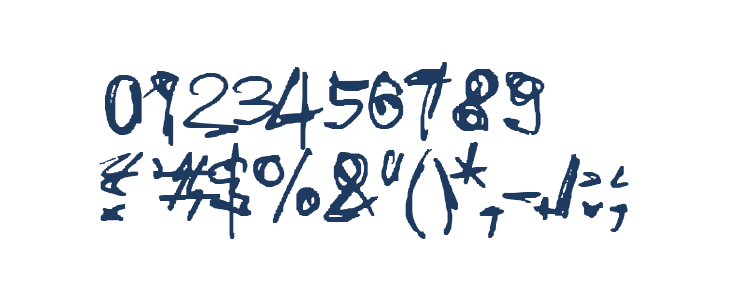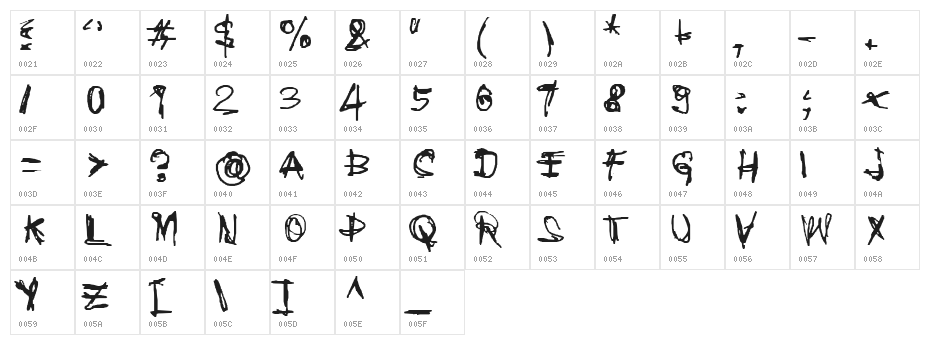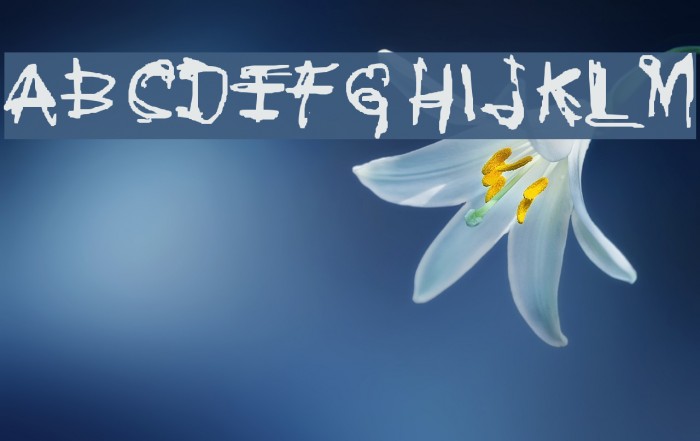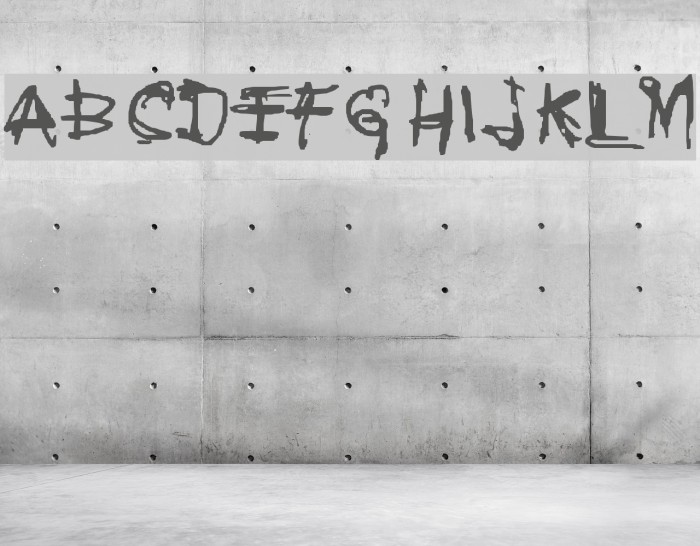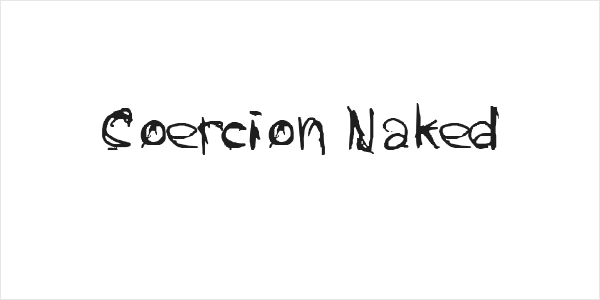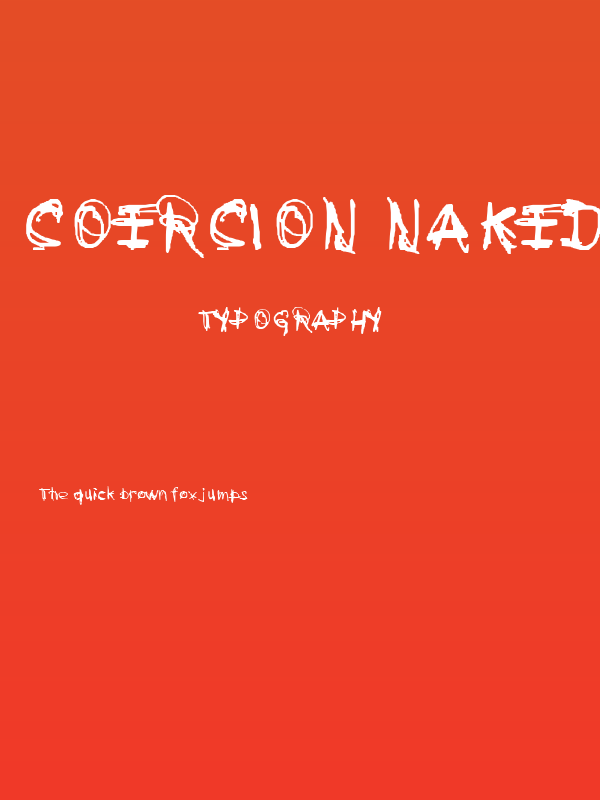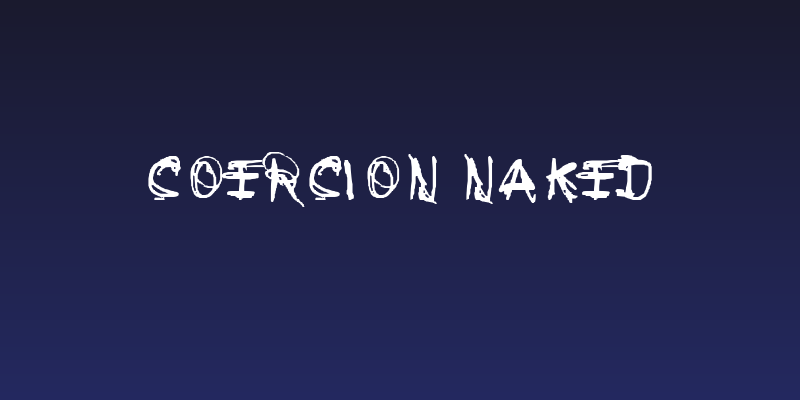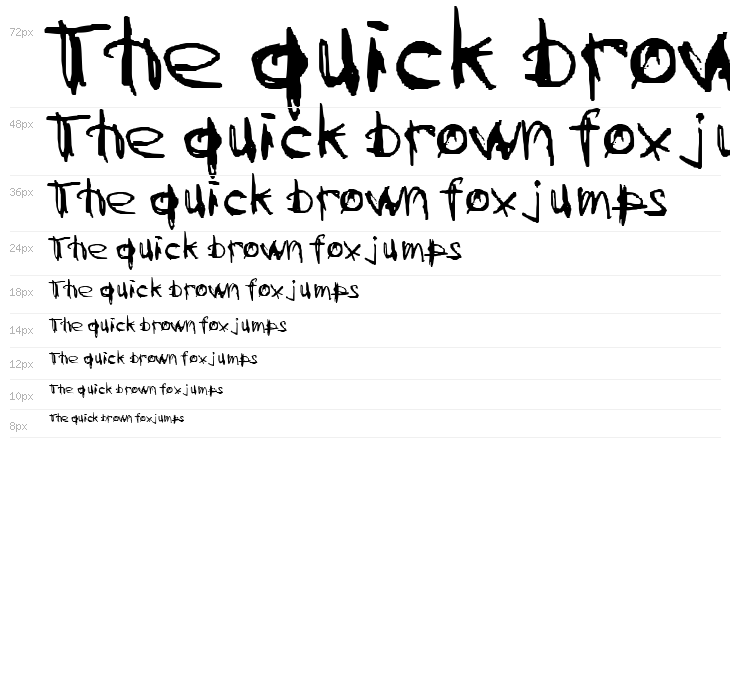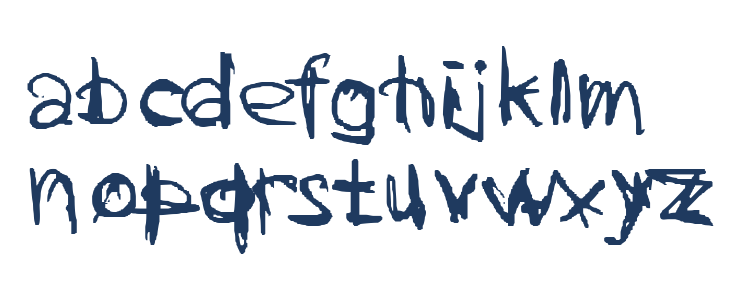
Coercion Naked Font
Coercion Naked Description
This font exhibits a raw, expressive style with a hand-drawn appearance. The characters are irregular and dynamic, featuring uneven strokes and a slightly chaotic structure. This gives the font a rebellious and edgy feel, reminiscent of graffiti or street art. The uppercase and lowercase letters maintain a consistent style, while the numbers and special characters follow the same energetic and bold design. The overall look is striking and unconventional, making it suitable for projects that require a bold statement or an artistic touch.
Overall StyleModern, Artistic
Proposed ProjectsIdeal for album covers, street art-inspired designs, edgy branding, and posters.